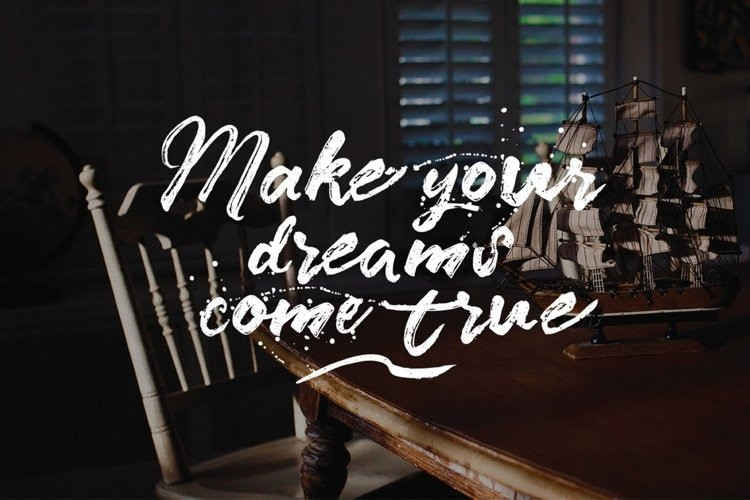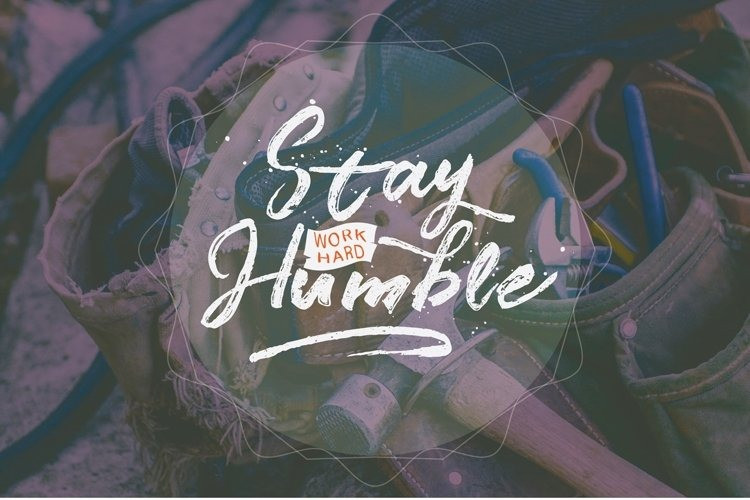
Branded Font
Branded Brush Font
This typeface designed by Unicode is a cool brush font that comes with two styles of clean and rough style and plus bonus extra brush that gives a natural impression. so this font can provide an alternative, new sensation and vintage feel for the designer or craftsman, in working on various projects.
Branded comes with alternative characters that were divided into several Open Type features such as Swash, Stylistic Sets, Stylistic Alternates, Contextual Alternates, and Ligature. The Open Type features can be accessed by using Open Types savvy programs such as Adobe Illustrator, Adobe InDesign, Adobe Photoshop Corel Draw X version, And Microsoft Word. And this Font has given **PUA Unicode** (specially coded fonts). so that all the alternative characters can be accessed easily and in full by the craftsman or designer.